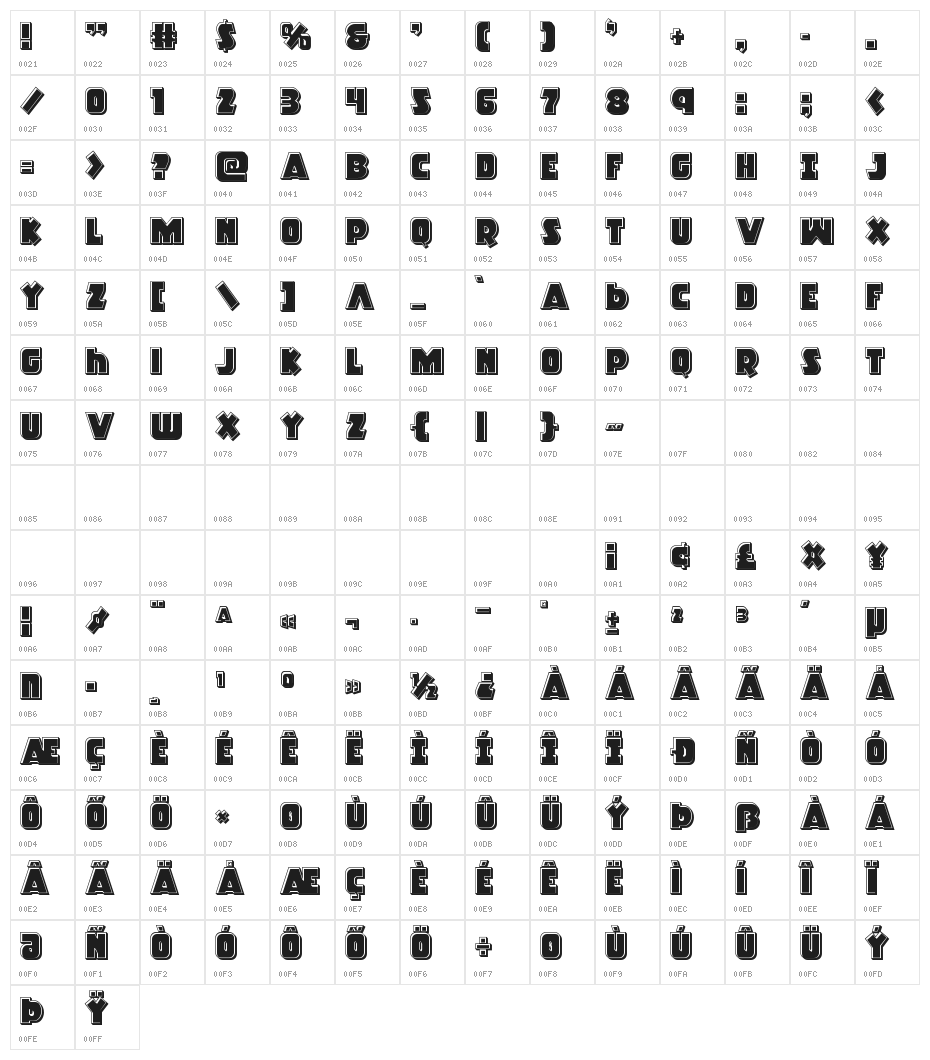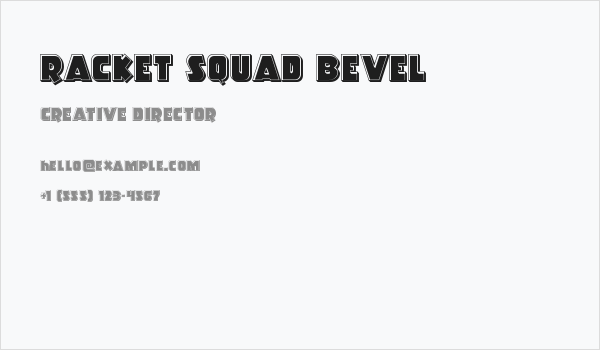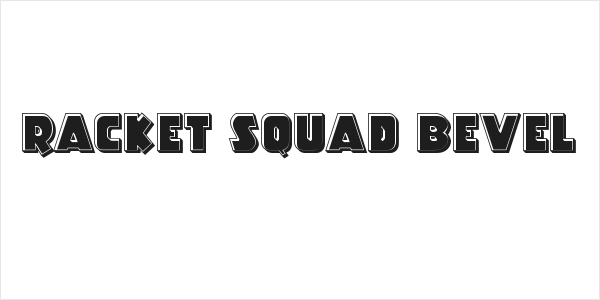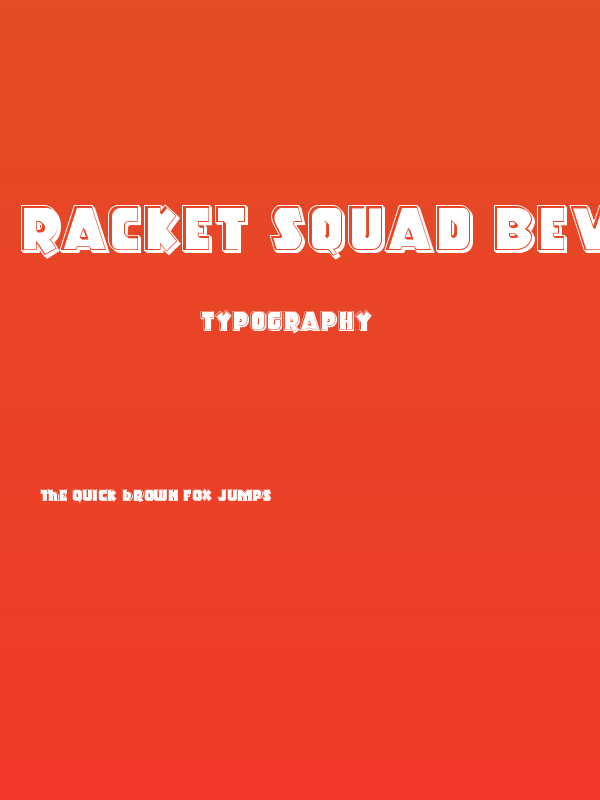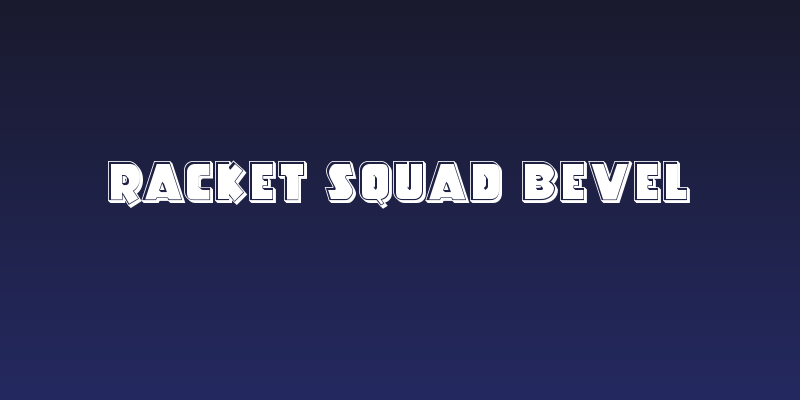
Racket Squad Bevel Font
Racket Squad Bevel Description
This font features a bold, three-dimensional appearance with a beveled edge, giving it a striking and impactful look. The characters are uppercase and lowercase, with numbers and a variety of special symbols. The design includes a shadow effect that enhances its depth, making it ideal for attention-grabbing headlines or titles. The font's geometric structure and sharp angles contribute to its modern and dynamic style, while the consistent thickness of the strokes ensures readability. Its unique aesthetic is suitable for projects that require a bold statement, such as posters, banners, or branding materials.
| Proposed Projects | Ideal for posters, banners, branding materials, and any project needing a bold, impactful design. |